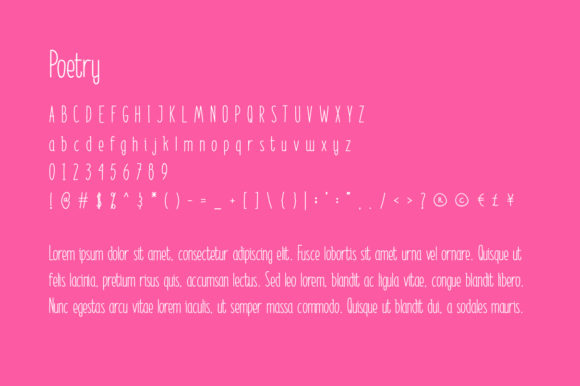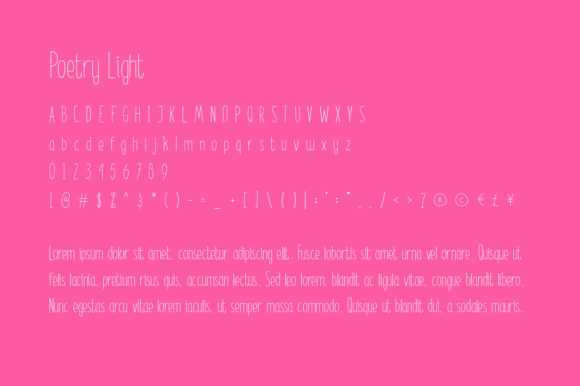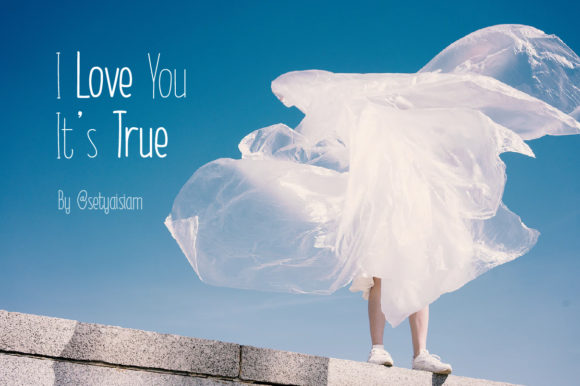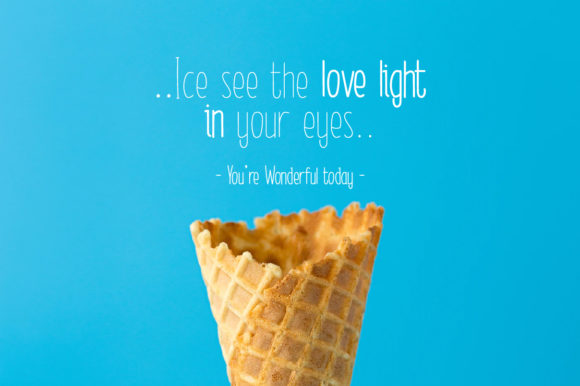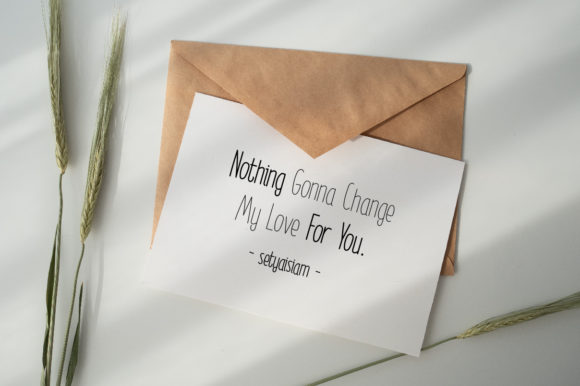
Introduction to Poetry Font
Have you ever been in the middle of a creative project, and the right font is the missing piece that brings everything together? I know I have! For me, it was a DIY wedding invitation set, and the perfect font was the Poetry Font. Its adorable, handwritten style gave our invitation a personal touch that made it truly special. With the Poetry Font, you can infuse any creative idea with a friendly, approachable feel that’s sure to capture your audience’s attention.
As a designer, you know how valuable the right font can be in elevating your work. That’s why we’re excited to share the Poetry Font with you. This beautiful, high-quality font is perfect for designers looking for a unique design resource that will help them stand out from the crowd.
Key Features of Poetry Font
- High-quality, elegant design perfect for creative projects and artistic endeavors.
- Unique, handwritten style with subtle flair and sophistication, adding a touch of elegance to any creative project.
- Perfect for use in digital art, graphics, logos, and other design elements, as well as for creating quotes, posters, and other visual content.
Honest Review: Poetry Font
As a designer, I’m always on the lookout for unique and high-quality design resources to elevate my creative projects. Recently, I had the opportunity to test out the Poetry Font, and I’m excited to share my honest review.
What works well: ✨ The Poetry Font is incredibly elegant and sophisticated, making it perfect for projects that require a touch of sophistication. The font’s beautiful, flowing lines and subtle flair make it a great choice for book titles, quotes, and other text-heavy elements.
What doesn’t work well: ⚠️ The Poetry Font is a bit limited in its flexibility, as it’s primarily designed for use as a display font. This can make it challenging to use in situations where a more versatile font is needed.
Overall impression: I’m really impressed with the Poetry Font, and I think it’s a great addition to any designer’s toolkit. While it may not be the most versatile font out there, its unique beauty and sophistication make it a great choice for the right projects.
Poetry Font is a unique and elegant design resource that can elevate your creative project to the next level. With a high-quality and transparent background, this font is perfect for any design need.
Tips for Getting the Most Out of Poetry Font
To get the most out of Poetry Font, try pairing it with a simple background and using it in bold, large font sizes.
Poetry Font is perfect for:
Book covers
Wedding invitations
Business cards
Any design project where you want to add a touch of elegance and sophistication.